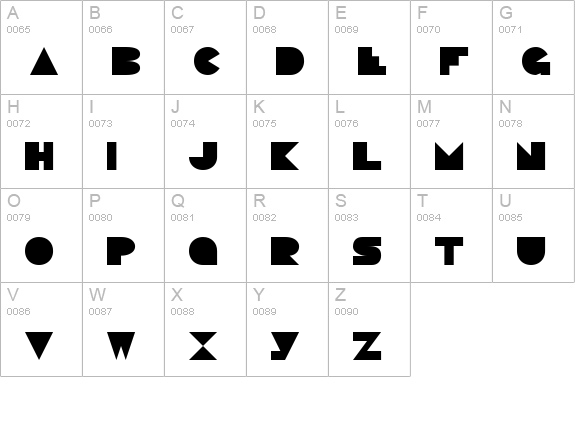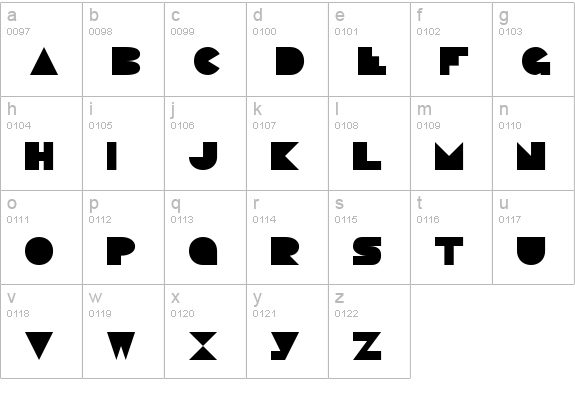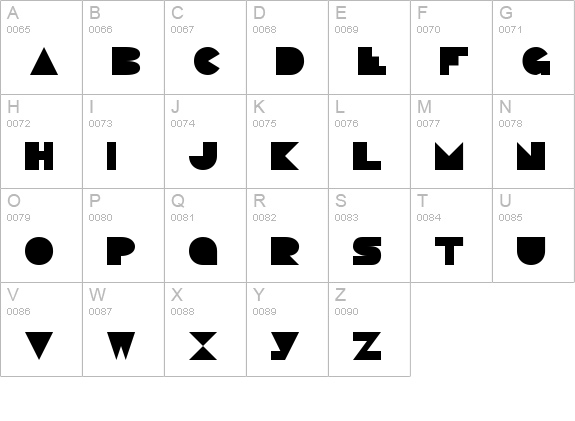
Pacmania Normal Font Details
Pacmania Normal is the standard, neutral variant in the Pacmania typeface family \xE2\x80\x94 well suited to general body text, paragraphs, and standard typographic work.
Pacmania Normal font is a playful and retro typeface that is sure to bring a nostalgic touch to any design project. Inspired by the classic arcade game, Pac-Man, this font captures the essence of the beloved character with its round, bubbly letters. The smooth curves and friendly appearance make it perfect for adding a fun and lighthearted feel to logos, posters, and other creative endeavors. This font is freely available to download at FontsMarket.com, where you can find a wide range of high-quality fonts for all your design needs. With Pacmania Normal, you can unleash your creativity and bring a touch of gaming nostalgia to your projects. So why wait? Download this font today and let the playful spirit of Pac-Man inspire your designs.